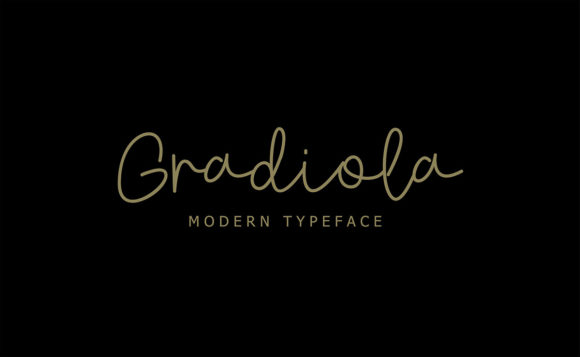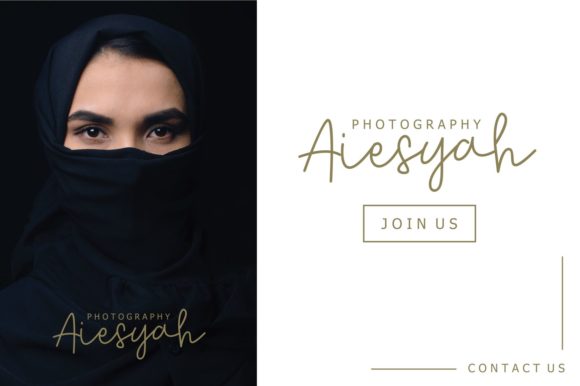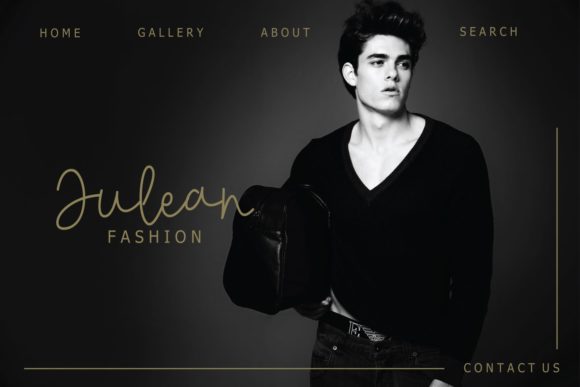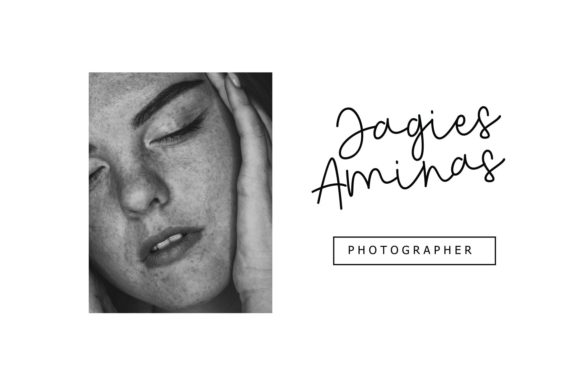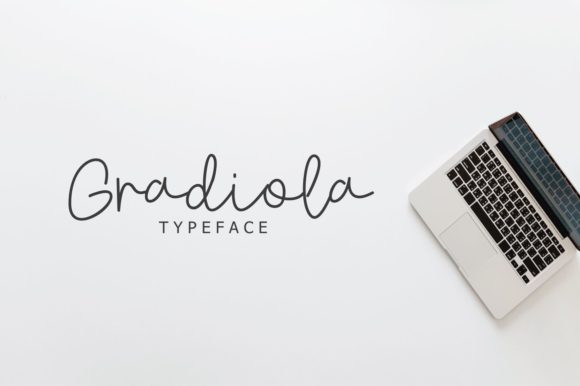
Gradiola Font
About Gradiola Font
The Gradiola is a beautiful font. It has a natural handwritten style which is perfect for signatures, stationary, logos, branding, posters, social media, ad banners, wedding invitations, greeting cards, and much more!